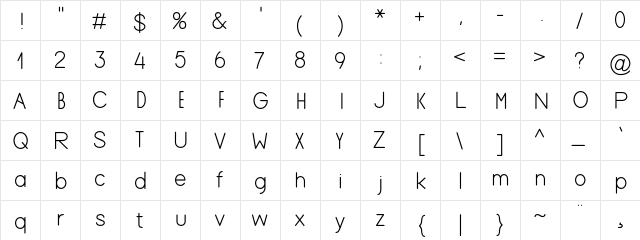
Keqima normal Font Preview
Keqima normal
Design Context for Keqima Typeface
Keqima offers clean, dependable letterforms without strong stylistic allegiance, making it a practical choice for designers who need flexibility.